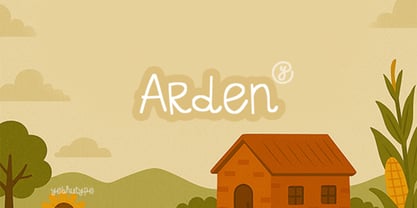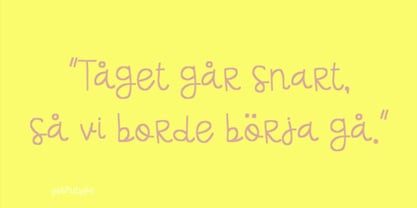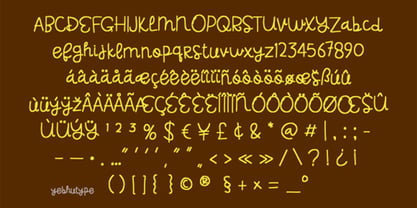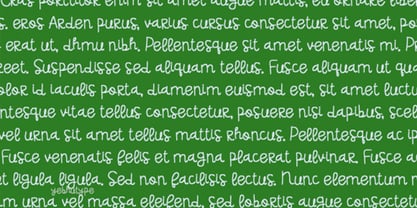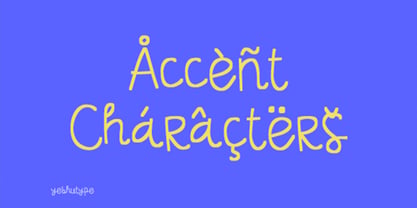
Arden Font: Where Playful Spirit Meets Handwritten Charm
Introducing Arden Font, a spirited handwritten typeface that blends whimsy, warmth, and casual elegance into every curve. With its quirky rhythm and soft, looping forms, Arden captures the joy of expressive writing and the human touch of spontaneous creativity.
Not just a font—Arden is a storyteller. It brings a sense of personality and play into every project, making it feel thoughtful, heartfelt, and wonderfully real. Whether you're designing for young readers, creative brands, or personal keepsakes, Arden adds just the right balance of fun and finesse.
The Essence of Arden Font
Arden is inspired by the freedom of handwriting—unfiltered, imperfect, and undeniably full of character. It’s a font that doesn’t take itself too seriously, yet it’s intentional in all the ways that matter. From its cheerful bounce to its open, approachable lines, Arden invites your audience into a world that’s both lighthearted and sincere.
Key Features
✏️ Playfully Handwritten
Each letterform is uniquely crafted to mimic natural handwriting, complete with charming irregularities that breathe life into your words.
🌈 Friendly and Expressive
With its rounded corners and lively proportions, Arden feels approachable and joyful—perfect for messages that want to connect on a personal level.
👀 Legibility with Personality
While Arden is full of character, it maintains clarity across sizes and platforms, ensuring your designs remain readable and engaging.
🎨 Adaptable and Versatile
Whether you’re working on children’s books, greeting cards, brand packaging, or social content, Arden fits seamlessly with designs that need charm and a human touch.
🖋️ Subtle Imperfections = Maximum Heart
Designed to feel handcrafted, Arden’s letterforms are slightly varied—adding warmth, depth, and a story behind every word.
Mood & Personality
Arden Font exudes creativity and approachability. It’s the font equivalent of a sunny sketchbook, a handwritten letter from a friend, or a notebook filled with dreams. It’s sincere, spirited, and never boring. Arden is playful, yes—but it’s also poised, giving your projects both lightness and substance.
Ideal Use Cases
📖 Children’s Books & Storytelling
Perfect for sparking imagination and making stories more immersive through warm, playful lettering.
🎁 Creative Branding & Boutique Packaging
Arden adds personality to brands that want to feel approachable, expressive, and thoughtfully designed.
💌 Invitations, Cards & Journals
Bring a personal touch to any occasion—from casual invites to heartfelt thank-you notes and scrapbooks.
📱 Social Media Graphics & DIY Projects
Use Arden to liven up captions, quotes, reels, and digital crafts with a distinctive, handmade vibe.
🧵 Creative Products & Handmade Goods
From Cricut cut files to stickers and planners, Arden enhances every piece with a whimsical edge.
Why Choose Arden Font?
In a world of polished uniformity, Arden stands out for its honesty and charm. It’s expressive without being chaotic, detailed without being busy, and fun without losing clarity. Arden helps you create work that feels personal, vibrant, and full of life—just like the best kinds of stories.
Let Your Words Come to Life
Arden Font turns ordinary messages into moments of connection. Every curve, bounce, and quirk has intention—offering a design experience that’s warm, human, and joyfully creative.